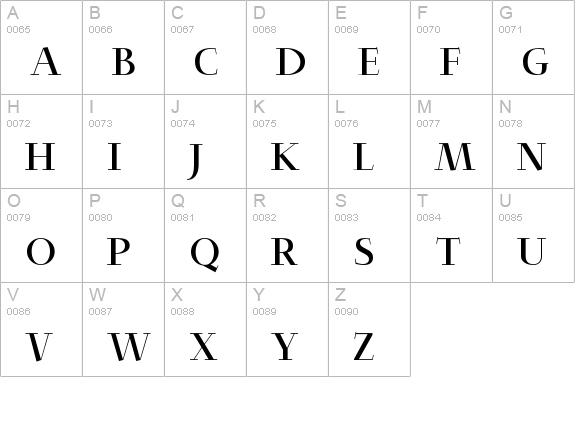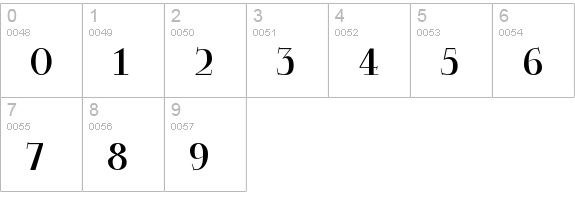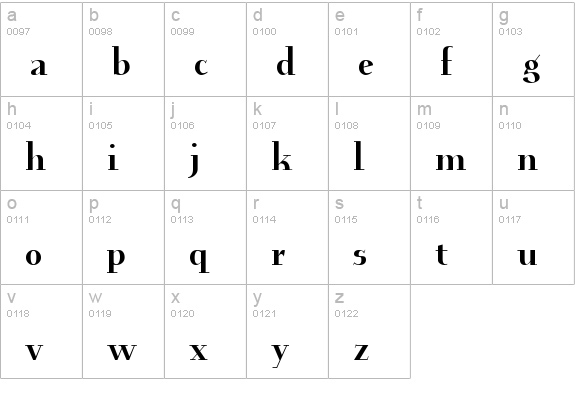
Euroika Bold is a strong, high-contrast variant in the Euroika typeface family \xE2\x80\x94 well suited to headlines, attention-grabbing titles, and strong calls-to-action.
Euroika Bold is a stunning and versatile font that exudes modernity and elegance. Its bold and distinct letterforms make a powerful statement, perfect for headlines, posters, branding, and more. With its sleek lines and stylish curves, Euroika Bold adds a touch of sophistication to any design project. The best part? Euroika Bold is available for free download at FontsMarket.com. This means you can elevate your designs with this striking font without breaking the bank. Don't miss out on this fantastic opportunity to enhance your creative projects with Euroika Bold's unique style and flair. Download it today and see the difference it can make in your designs!